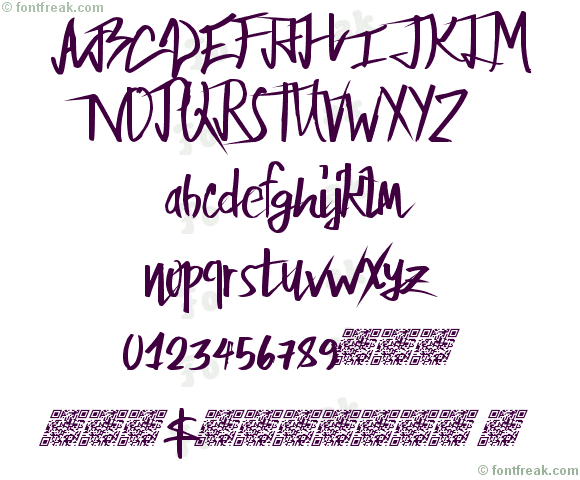
FairBanks
About FairBanks
FairBanks by Xerographer Fonts is a captivating display font that effortlessly combines modern aesthetics with a touch of nostalgia. This font features a unique handcrafted style, characterized by its playful curves and varied stroke weights that create a dynamic visual appeal. The overall design showcases a balanced contrast between thick and thin lines, providing a sense of movement and energy. With its open spacing and slightly irregular edges, FairBanks exudes an organic charm that sets it apart from more traditional typefaces.
This font is particularly well-suited for a variety of creative applications. It shines in wedding invitations, where its whimsical flair can enhance the romantic ambiance. Additionally, FairBanks is an excellent choice for movie posters, allowing designers to inject personality and intrigue into their promotional materials. Restaurant menus can benefit from its modern yet approachable design, making dishes feel inviting and accessible. Content creators will find it useful for social media graphics, where the font's distinctive character can help posts stand out in crowded feeds. Graphic designers and small business owners alike will appreciate its versatility and engaging aesthetic.